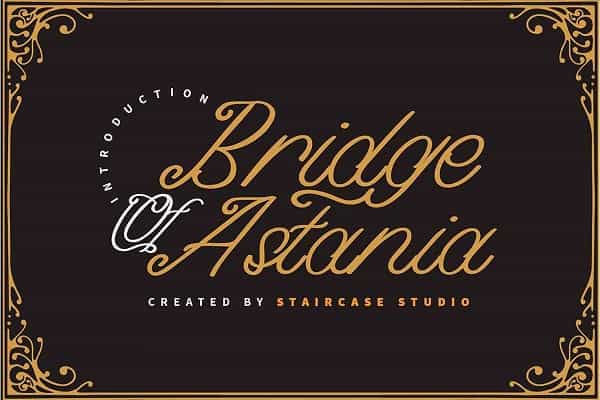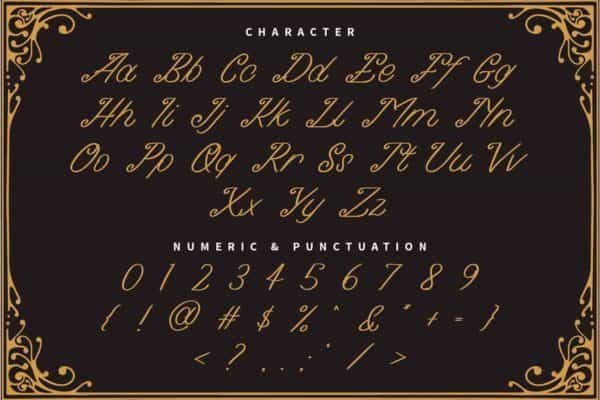
Bridge of Astania can be classified as a new monoline script font with a lovely and natural handwritten curve. This is ideal for packaging materials, quotes for greeting cards and business cards, posters, and many others.